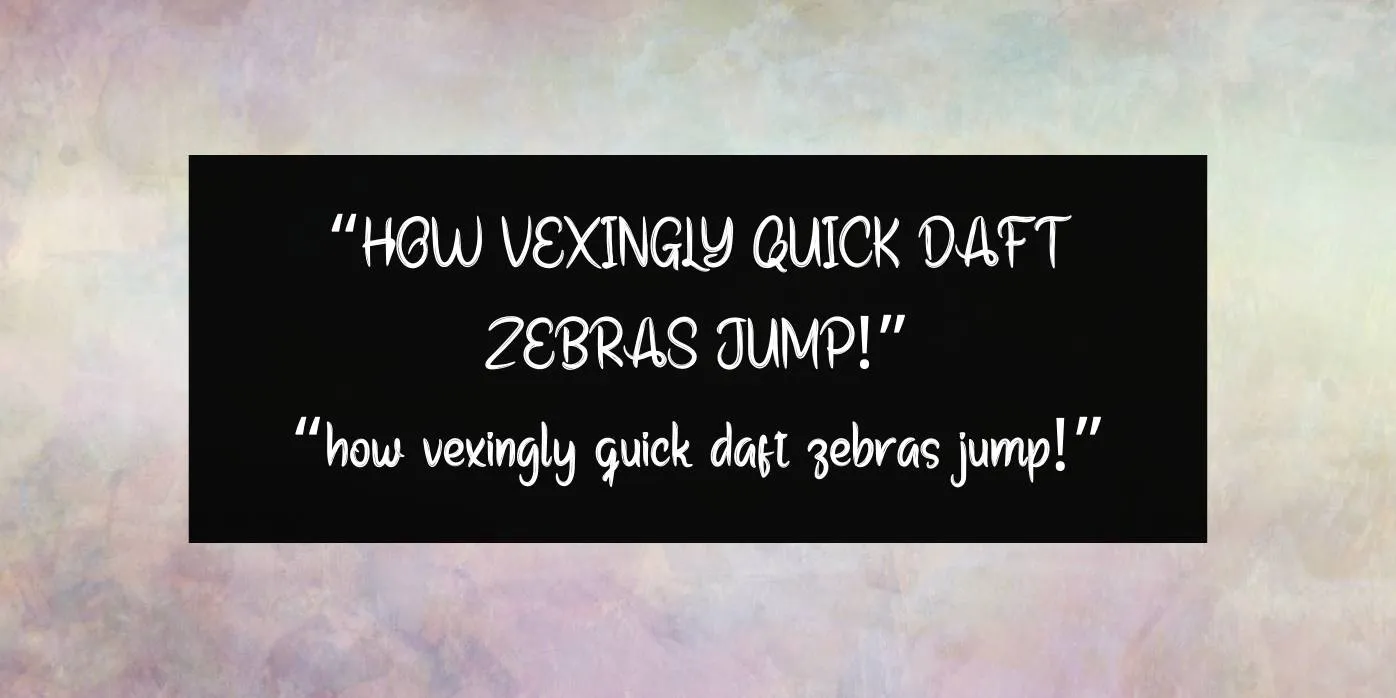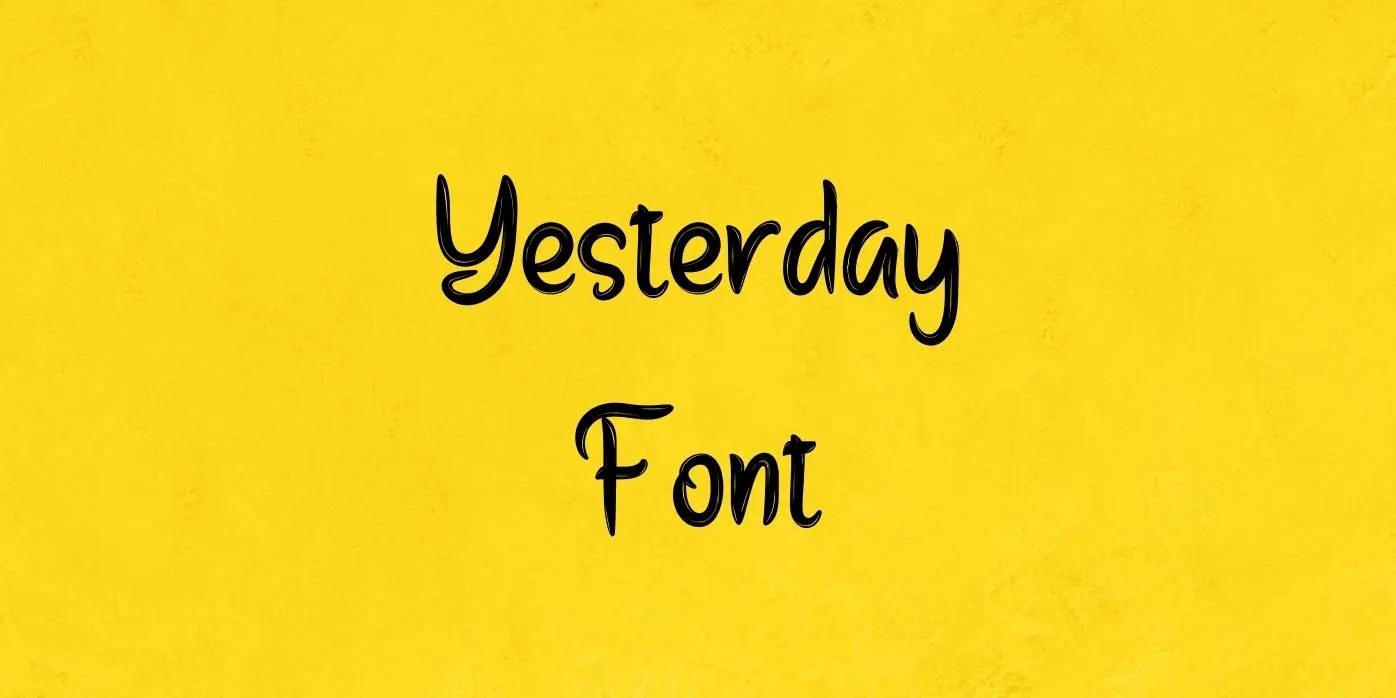
Yesterday Font
Yesterday Font is a beautiful, old-fashioned Typeface that has been used for centuries. This Typeface is known for its ornate and delicate designs. The Typeface was created in the early days of printing and was used by some of the most famous printers of the time. Today, the Yesterday Typeface is still popular among many people who enjoy the antique look it gives to their documents.
This Typeface is also a popular choice for tattoo designs. This Typeface was created in the early days of printing and was used by some of the most famous printers of the time. You can pair the typeface and make valuable designs with montserrat font that also has similar characters and matching characteristics, available on our website you can get easily.